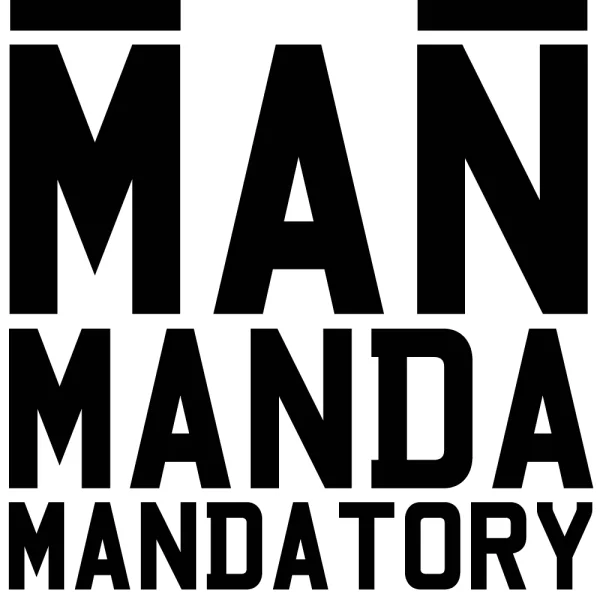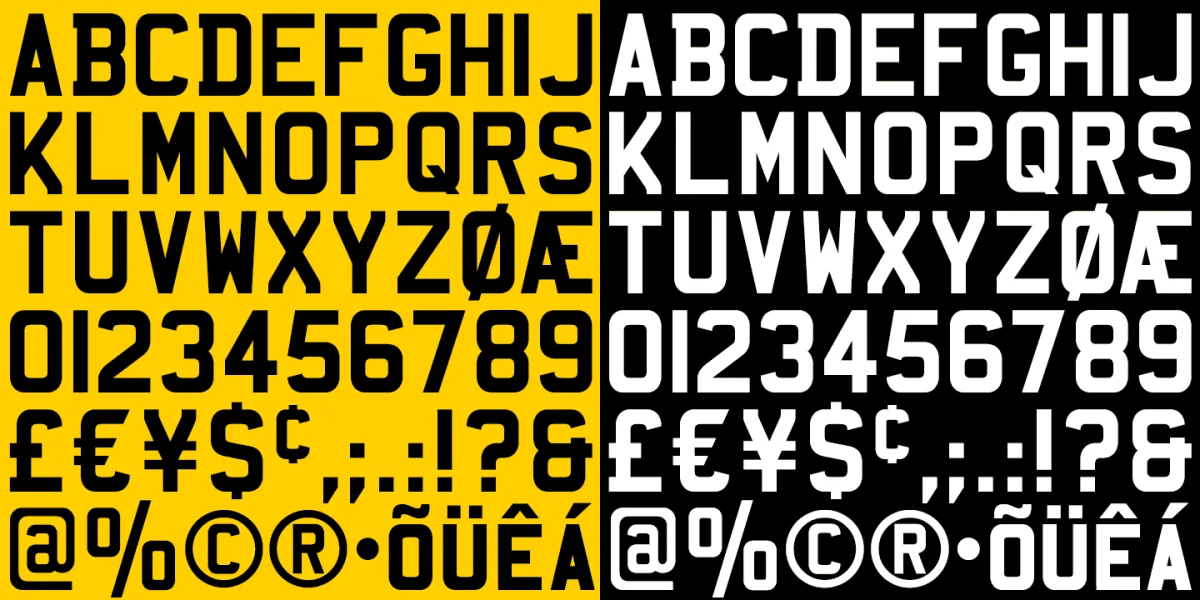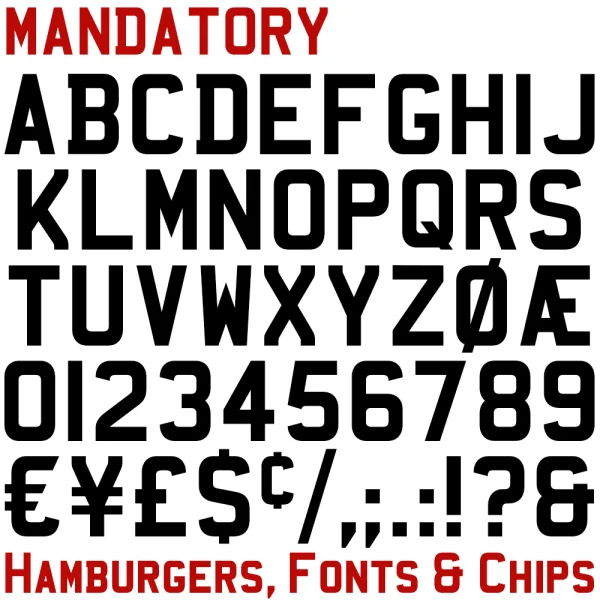
Mandatory is a full font developed from the typeface used for UK vehicle registration plates. There is improved stroke separation on the M and W which are pointed at the centre.
For designers, the font is completed with small capitals for the lower case, currency symbols, punctuation marks, printers’ symbols and accented characters.
Version 5 (2023) contains heavier small caps characters. These better match the weight of the uppercase letters and make the font more useful for mixed case text.
Version 5 also includes numerous outline and spacing improvements.